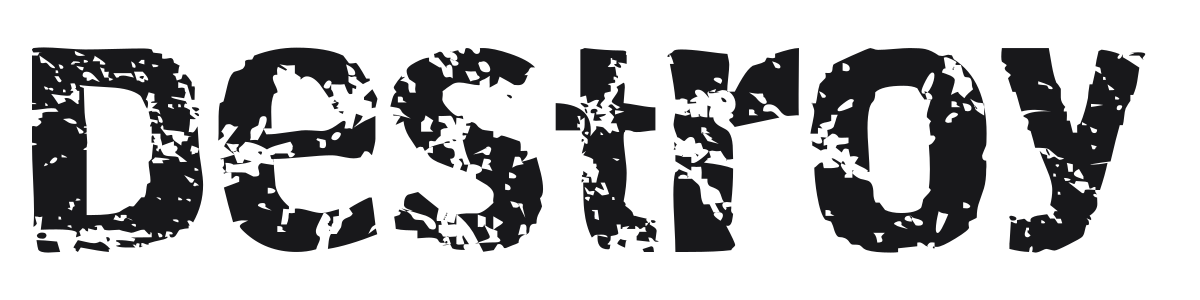
Destroy
Destroy is a heavy rounded sans-serif buried under a thick layer of grit, cracks, and ink erosion. The underlying forms are clean and bold, but the aggressive distress texture gives every character a worn, printed-on-concrete quality. It suits anything that needs to feel damaged, underground, or loud.